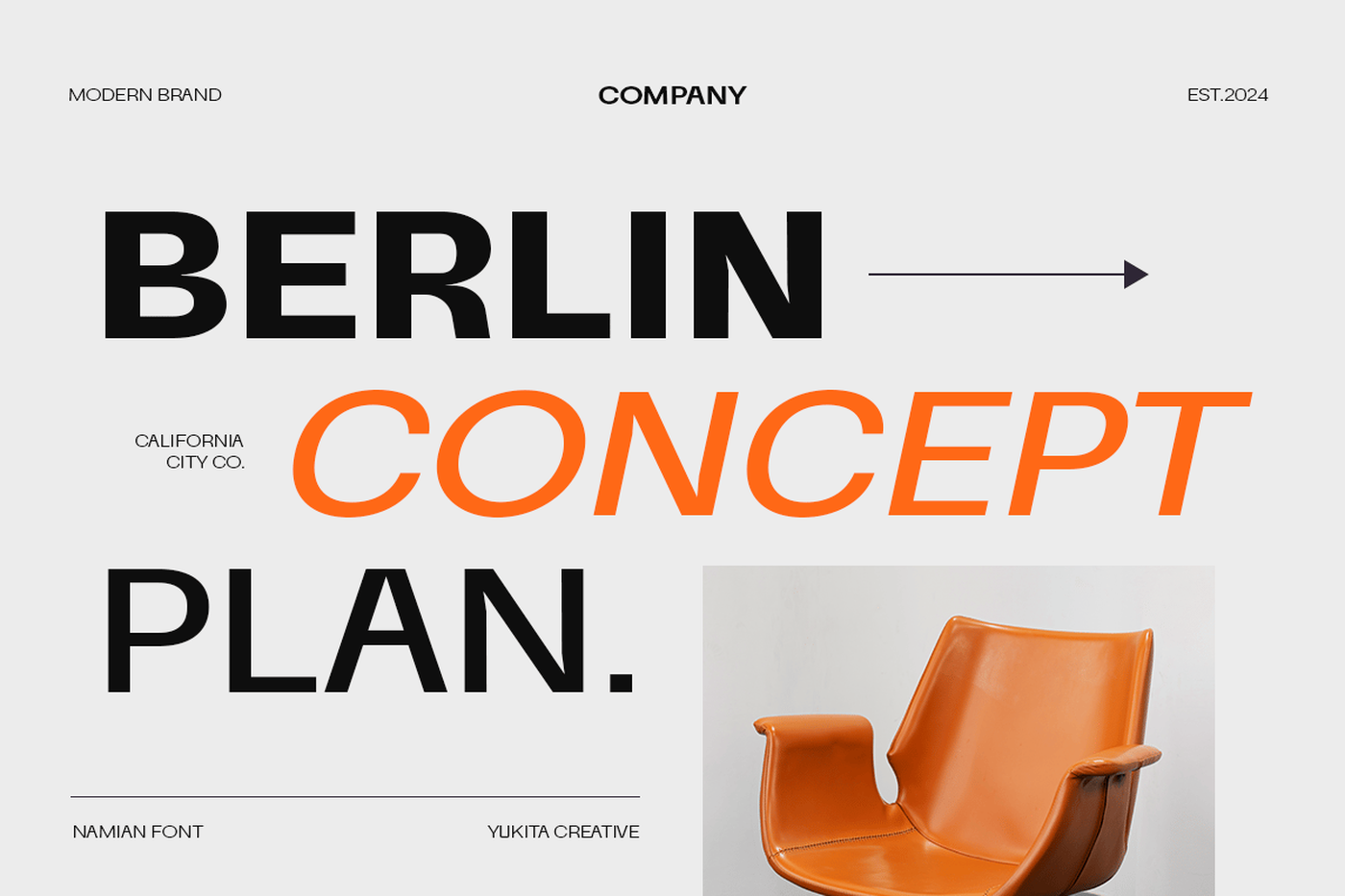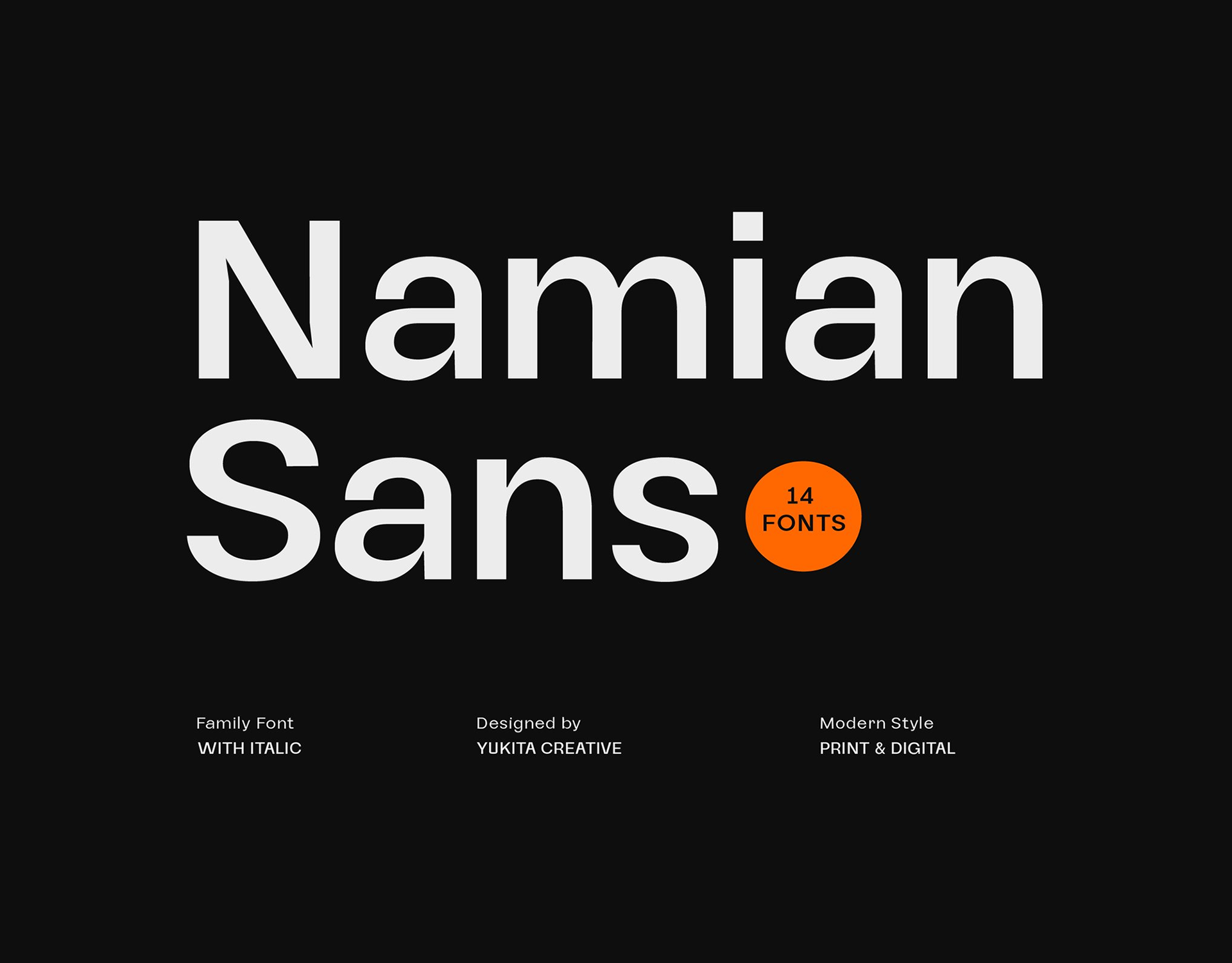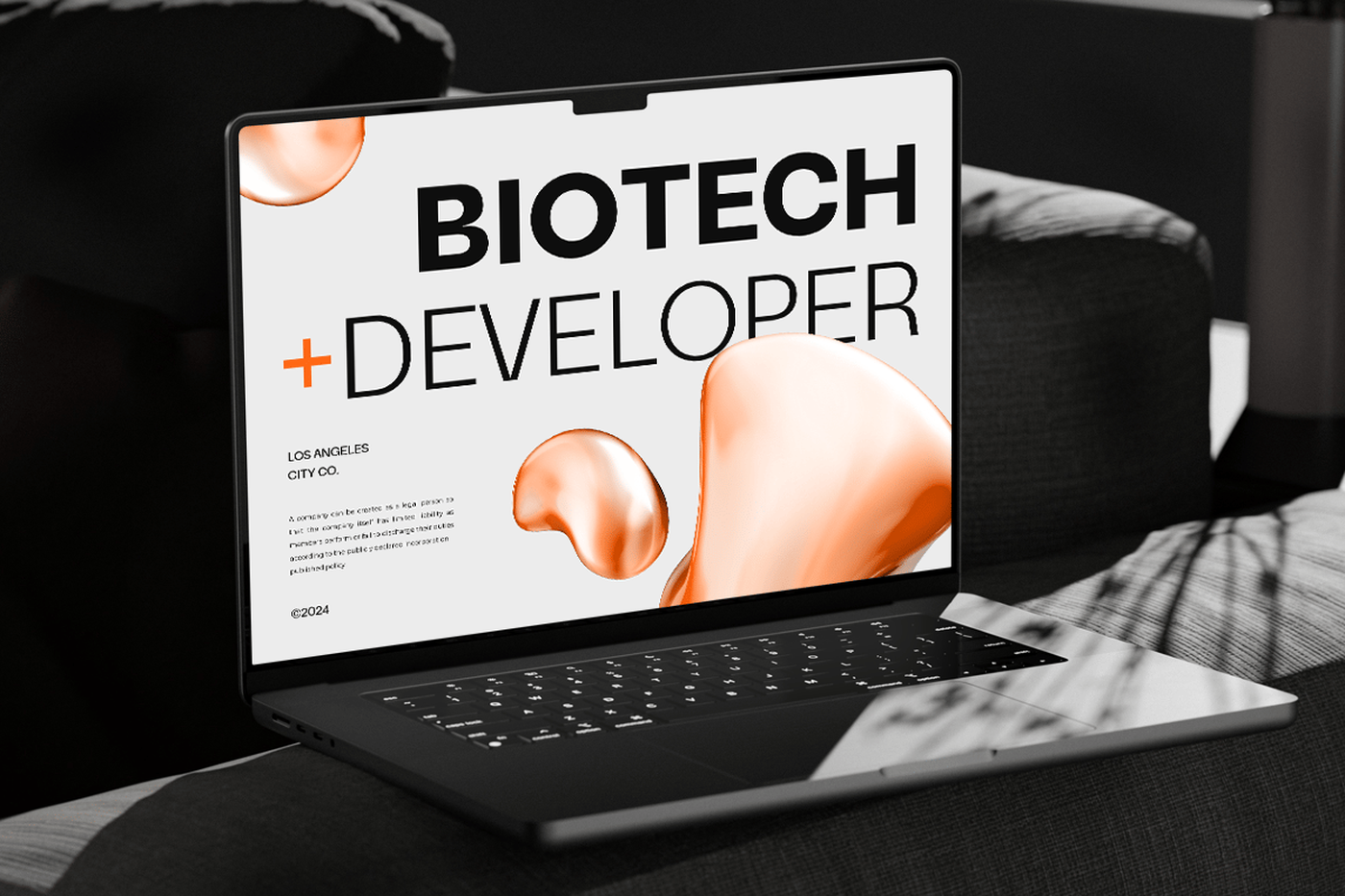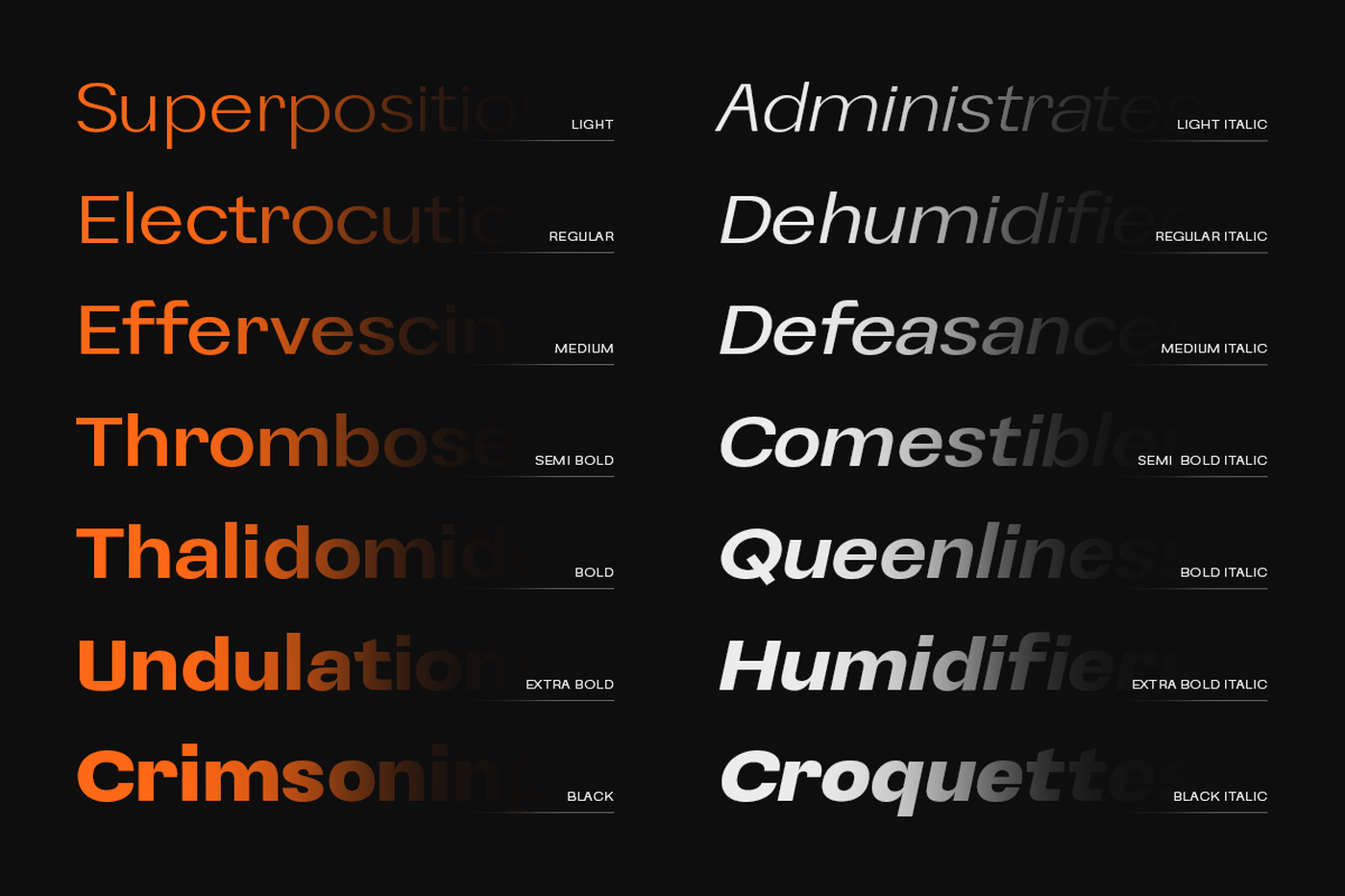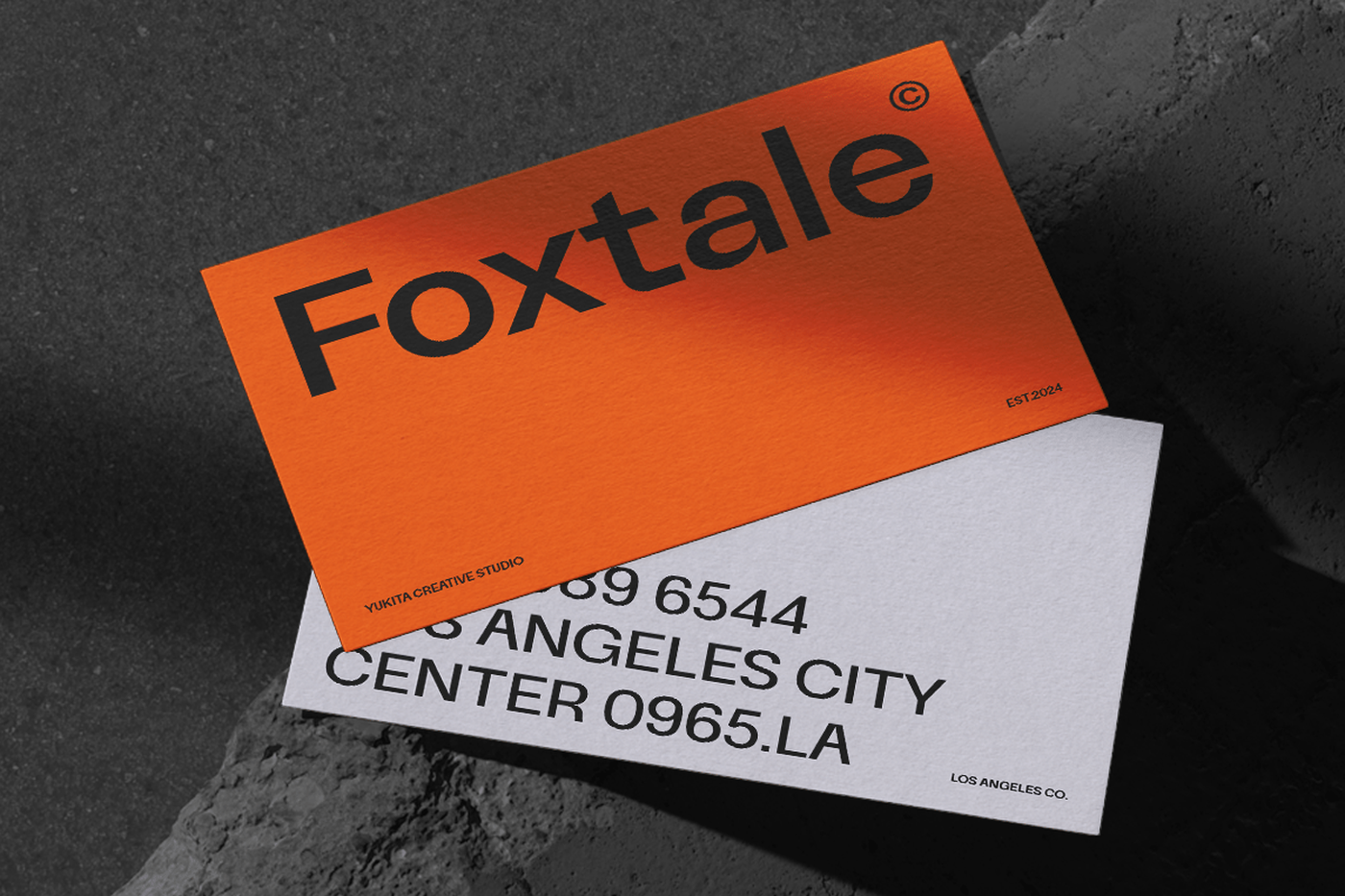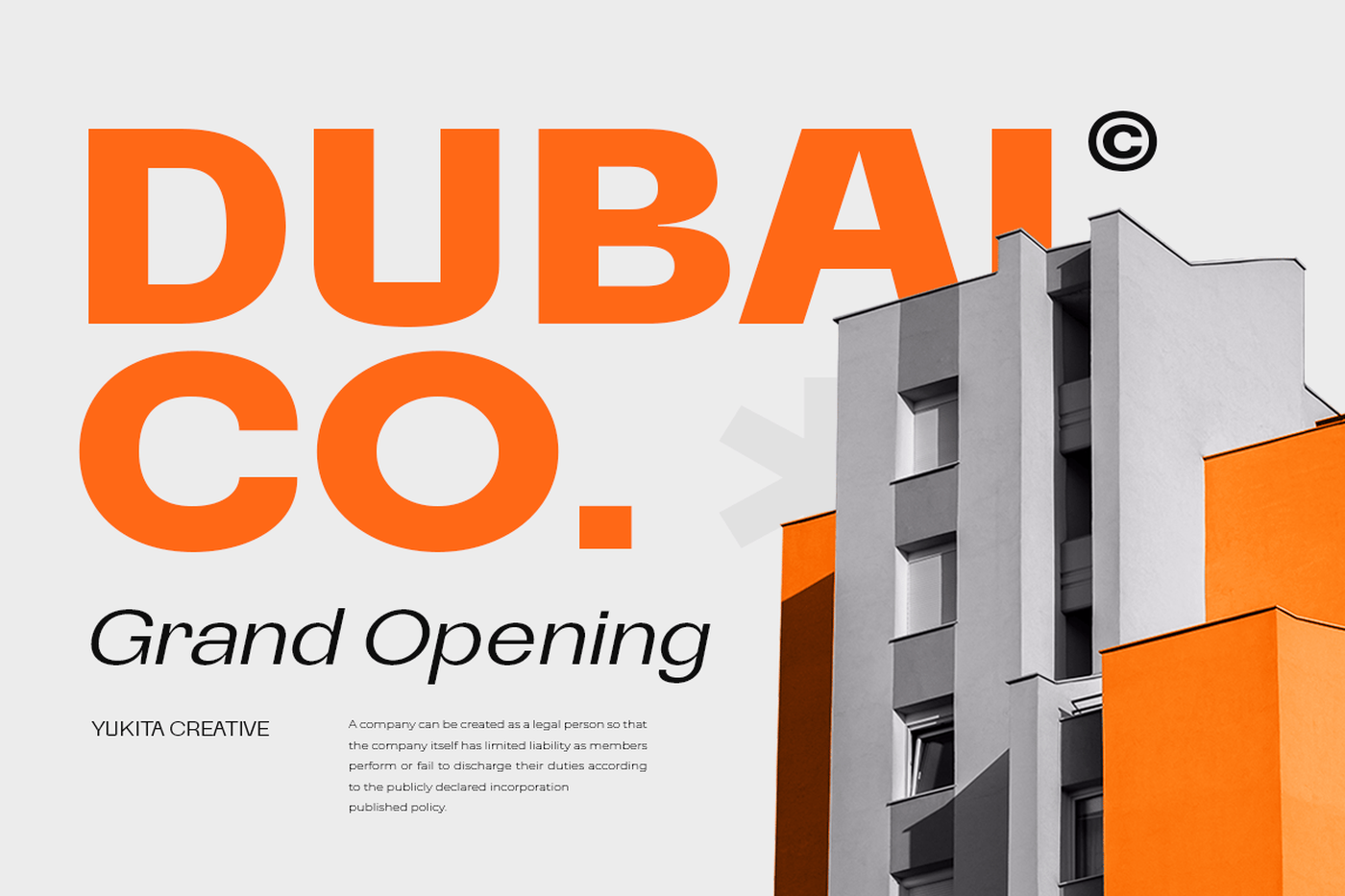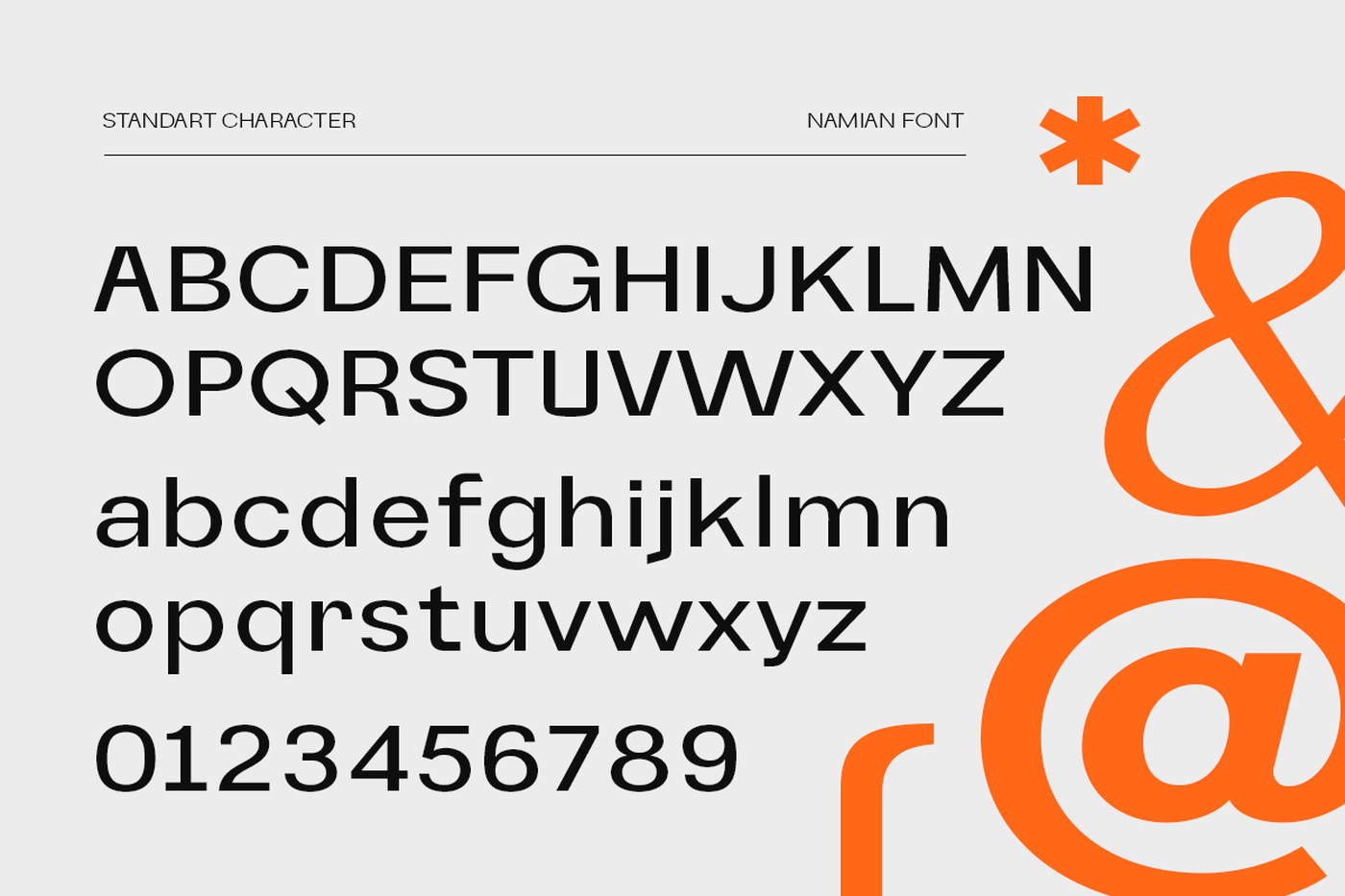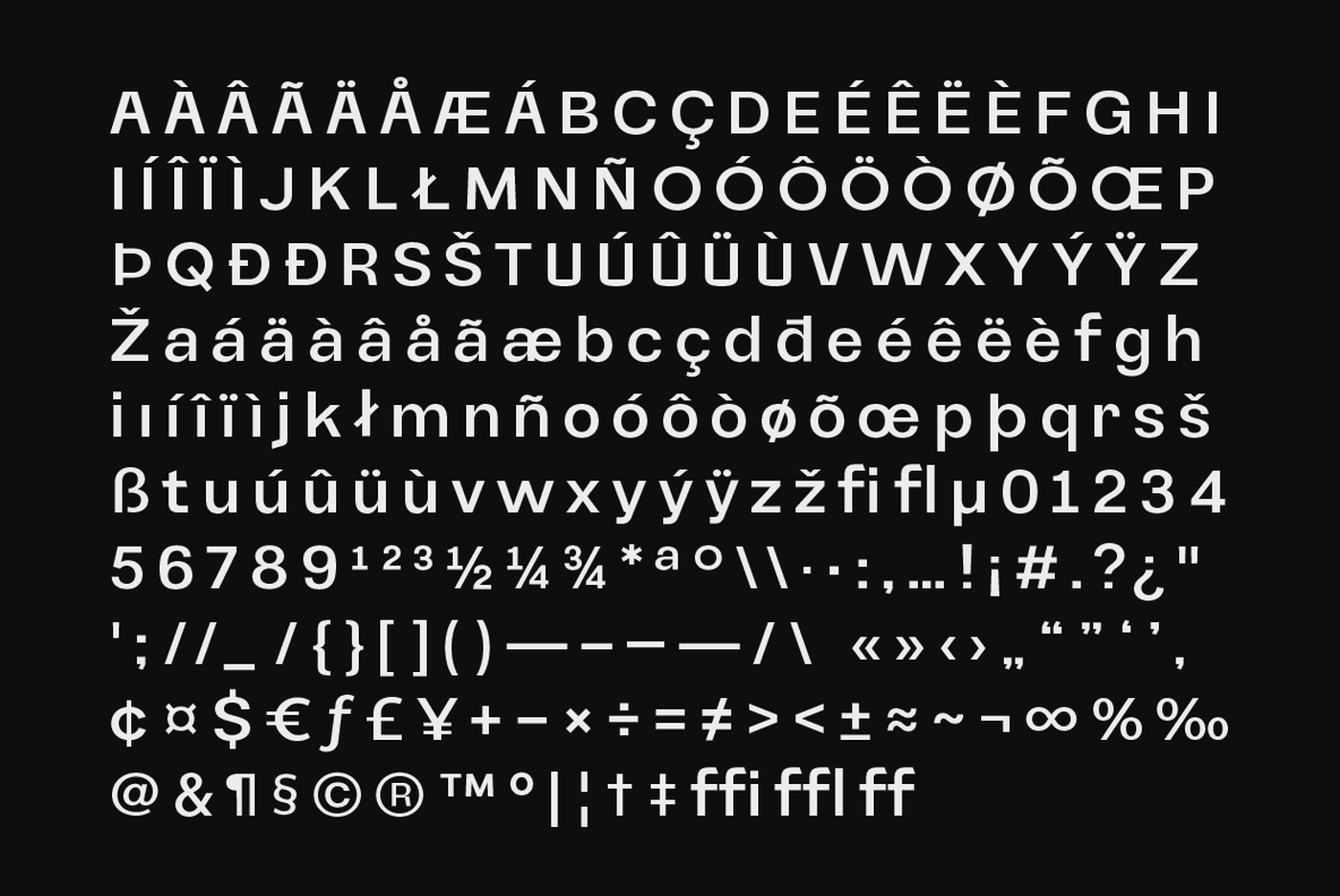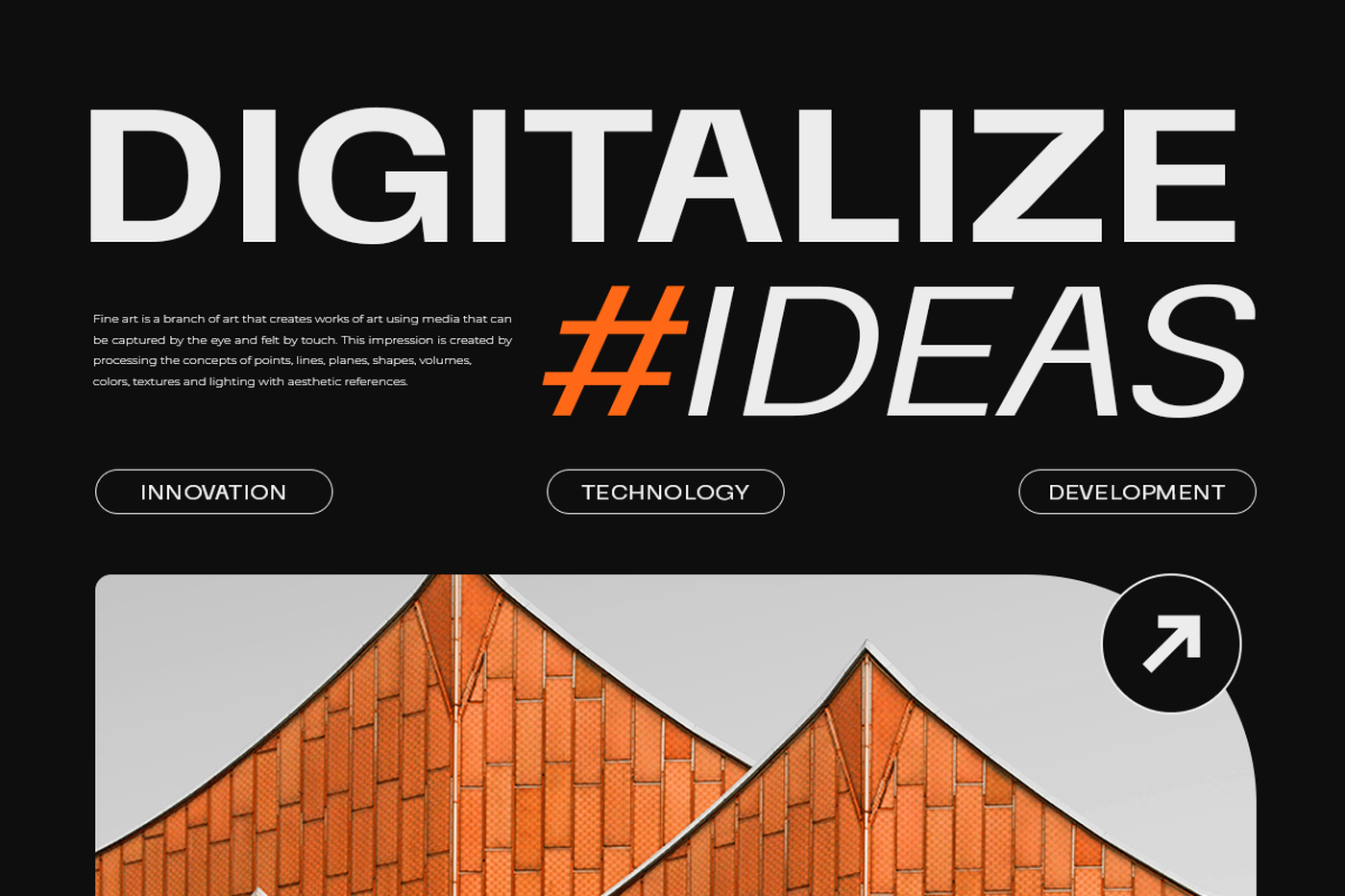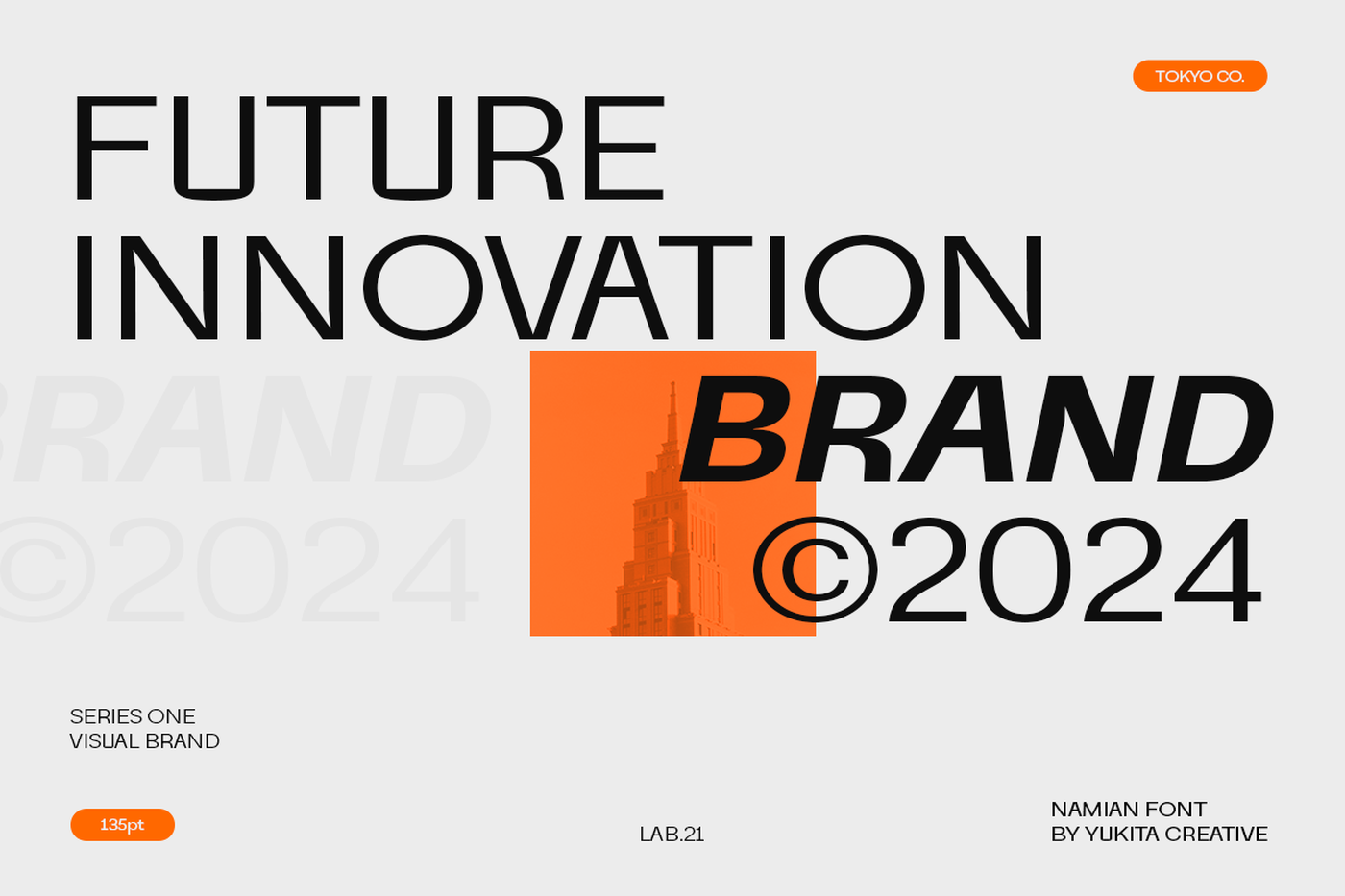
Namian - Modern Sans Serif Font Family
Namian is the perfect choice for your modern design projects. This versatile font family includes 7 distinct weights, ranging from Light to Black, providing exceptional flexibility for various design needs. Each weight is meticulously crafted to deliver a clean and elegant look. Whether for long texts or striking headlines, Namian Sans Serif ensures high readability and an appealing aesthetic.